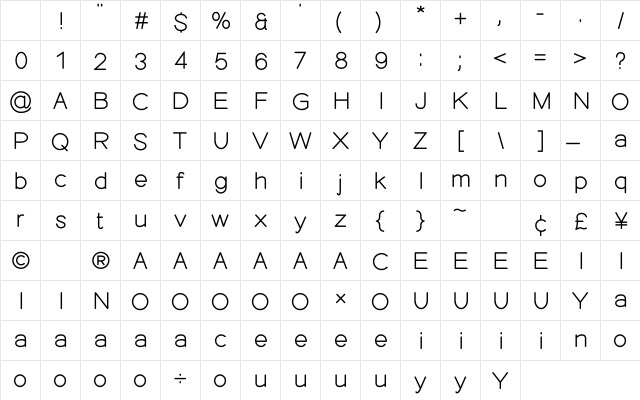
Complete ST Hanekam Rounded glyph index. Displaying only characters natively supported by ST Hanekam Rounded font.
ST Hanekam softens its letterforms with rounded terminals, giving it an approachable, friendly quality that works well in consumer-facing and digital contexts.
Font Pairing: Pairs well with a rounded or humanist sans for body copy, maintaining the friendly tone without relying on ST Hanekam to carry extended reading.
Pro Tip: Use ST Hanekam for UI elements, app interfaces, and anywhere a friendly, approachable tone needs to be maintained without sacrificing clarity.